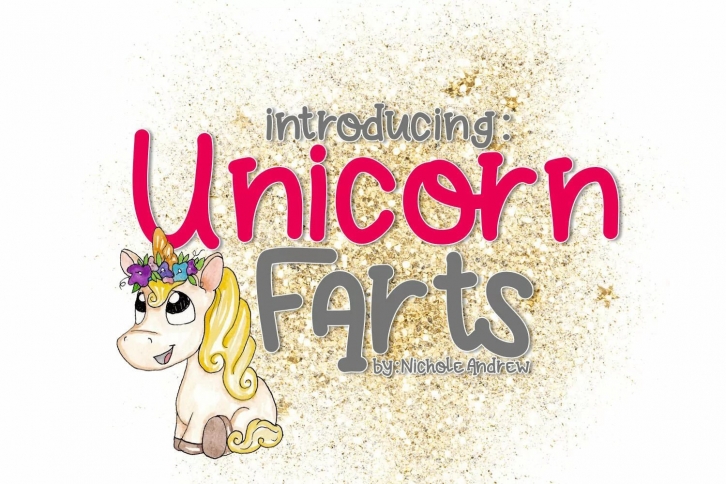
Introducing Unicorn Farts, a fun handwritten font. This font features a thick line, perfect for cutting machines and other fun projects! Unicorn Farts adds a fun touch to all sorts of projects like cards, designs, water bottles, stickers, and more! The possibilities are endless!